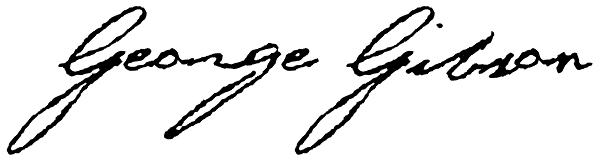
George Gibson
George Gibson is based on handwriting samples dating back to mid-1800s England. The font features additional characters for foreign language support, as well as extra glyphs.